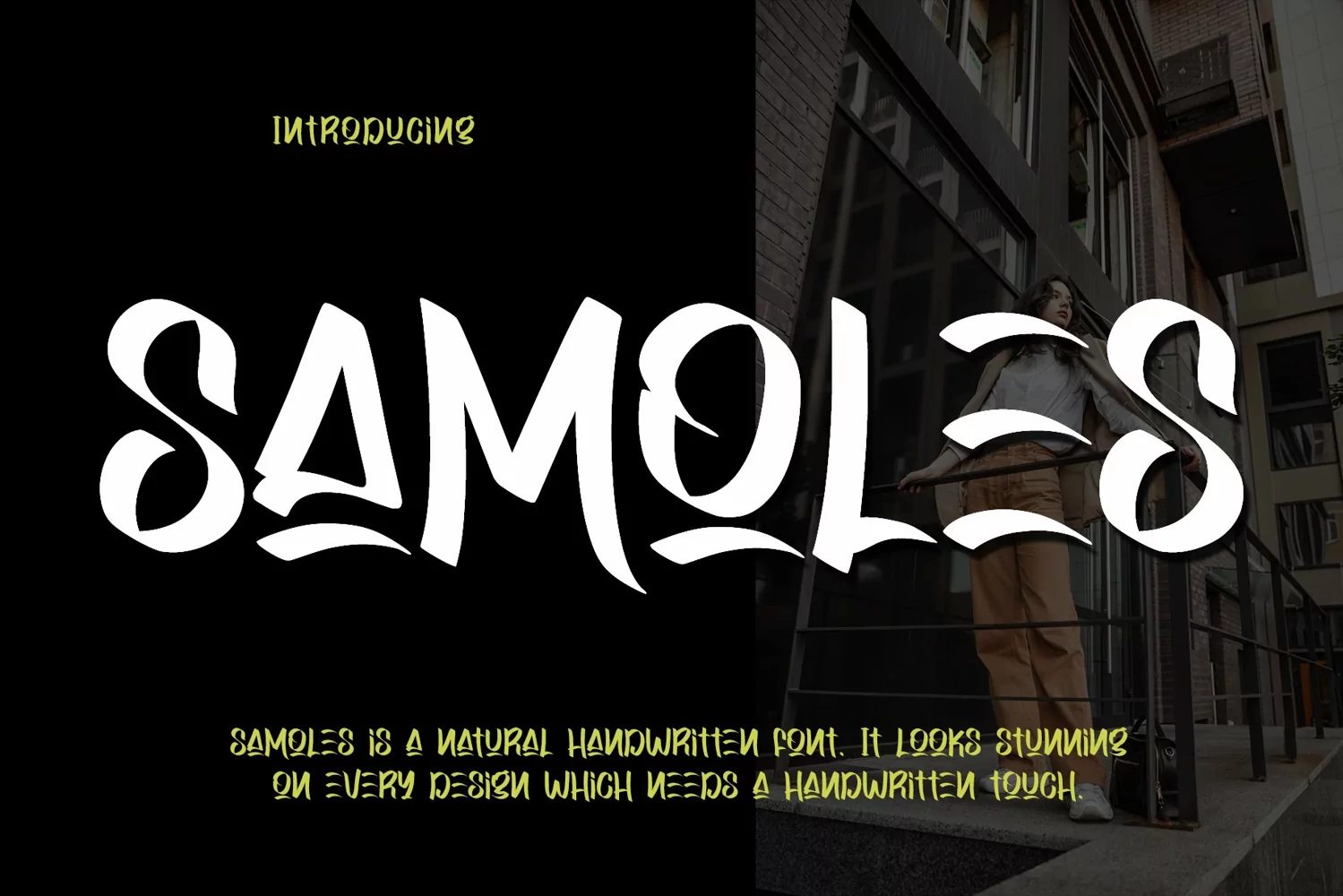
Beautiful Handwritten
Samoles is a natural handwritten font that perfectly replicates the untouched beauty of organic handwriting. Samoles brings an exclusive, authentically scripted element to your creations, infusing them with a subtle essence of expert refinement.